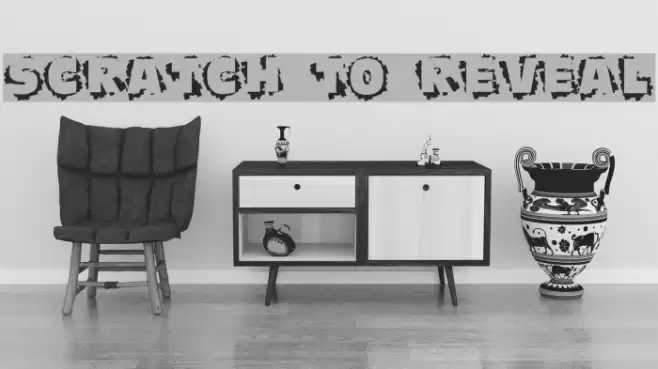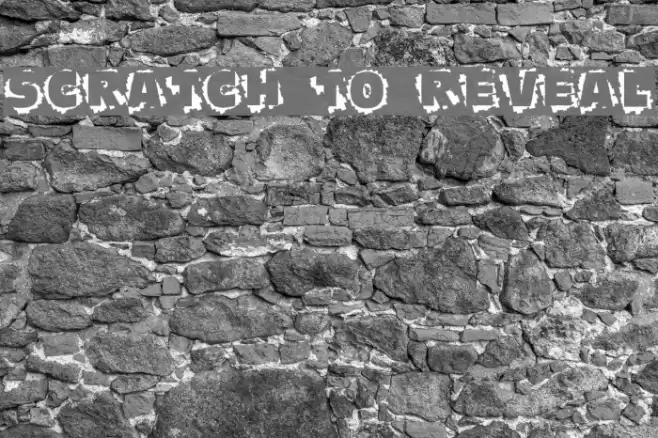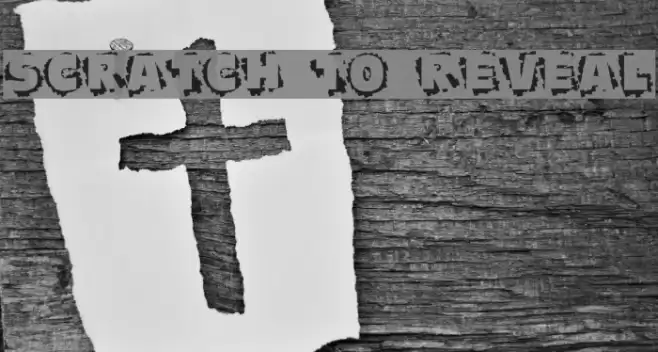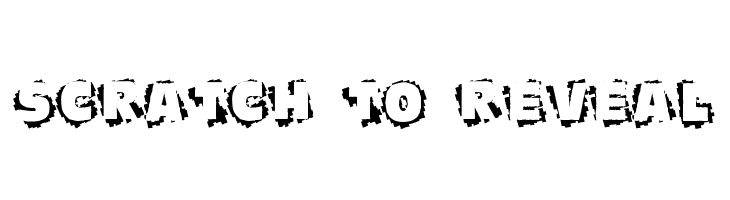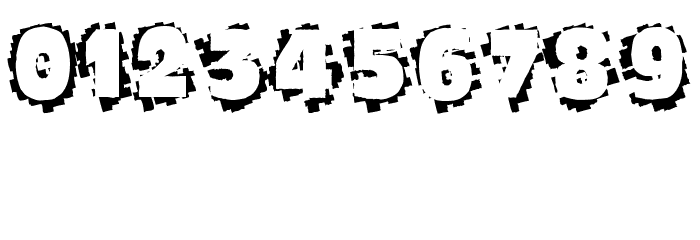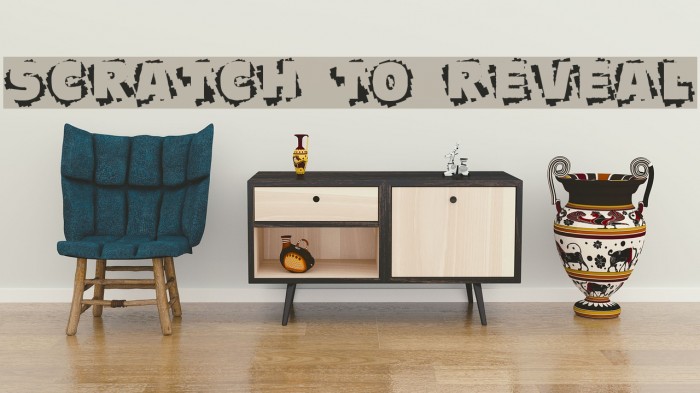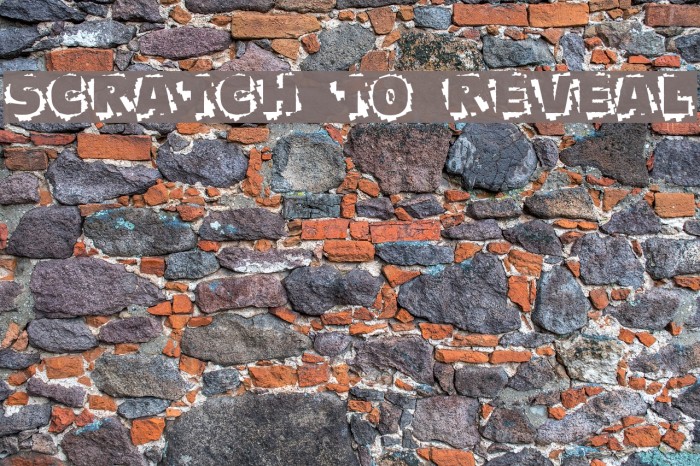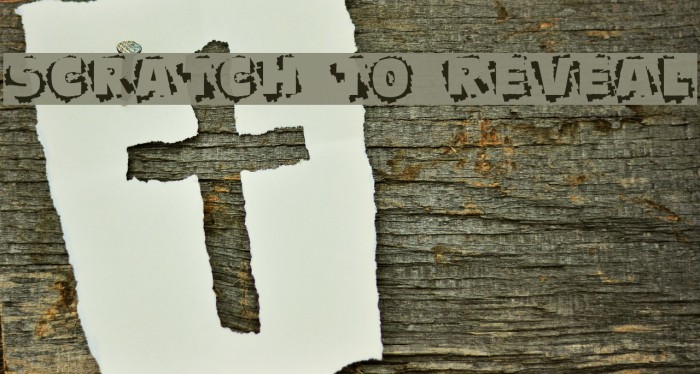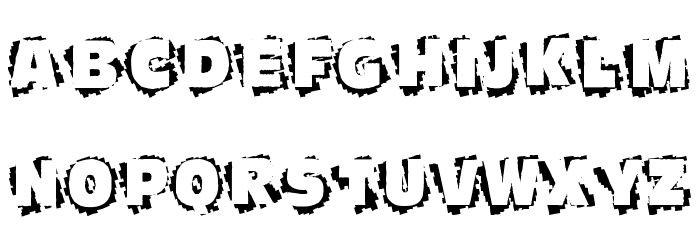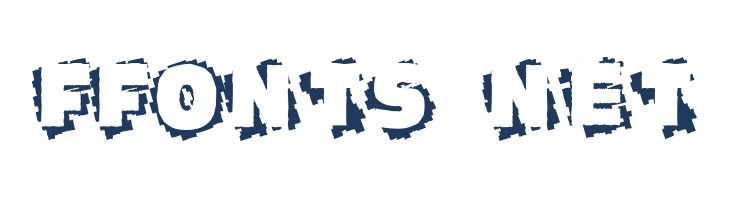
Scratch To Reveal Font
Scratch To Reveal Description
This font features a bold and dynamic style with a distressed, scratch-like texture that gives it a unique, edgy appearance. The characters are uppercase and numerals, each with a rough, uneven outline that suggests a sense of movement and energy. The font's design is reminiscent of graffiti or street art, making it ideal for projects that require a bold, eye-catching look. The texture adds a layer of complexity, making it suitable for creative and artistic applications. Its boldness ensures readability while the distressed effect adds character and depth.
A bold, distressed font with a scratch-like texture, perfect for dynamic and edgy designs from Distorted Eroded fonts.
- Proposed Projects: Ideal for posters, album covers, street art-inspired designs, and any project needing a bold, artistic touch.
- Overall Style: Modern, Edgy